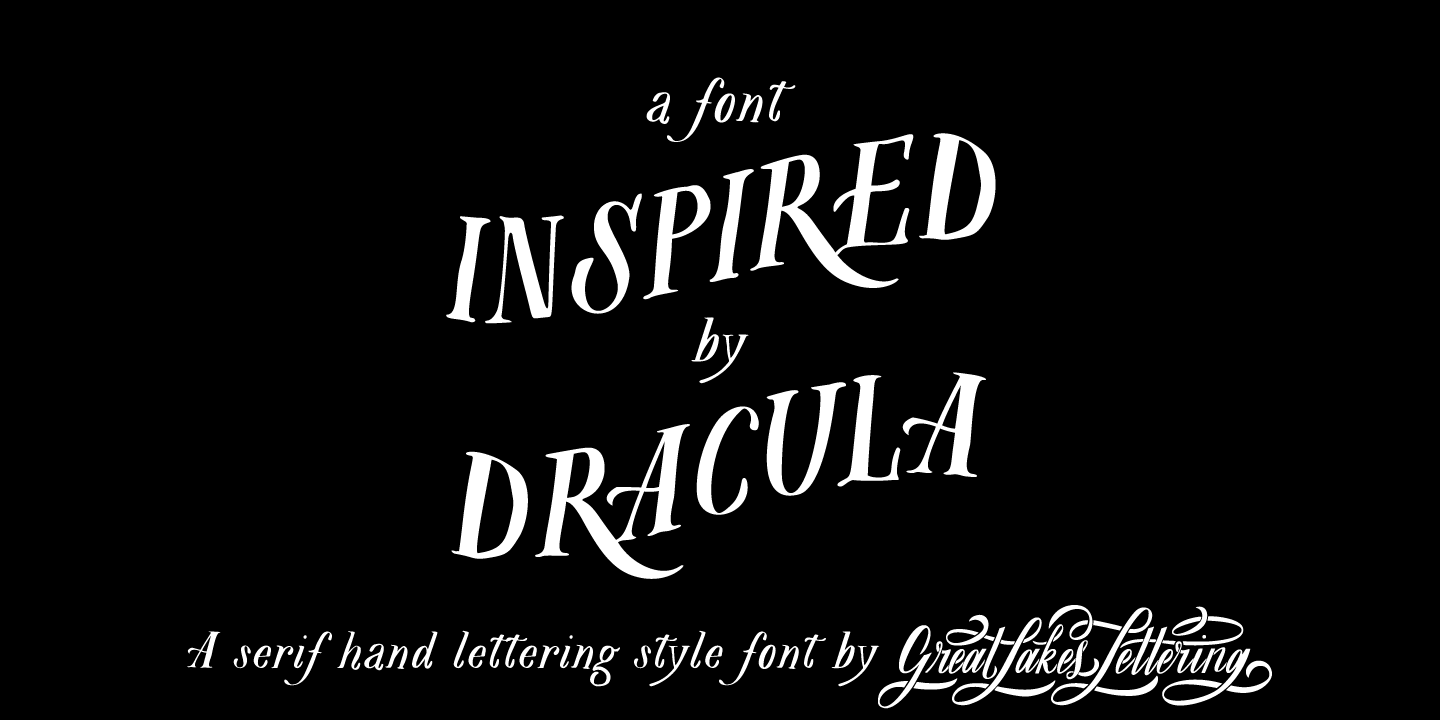
Helsing Font Free Download delivers gothic typography that combines dark elegance with contemporary functionality for atmospheric design applications. This commercial font requires purchase for business use, but you can download it for free for testing purposes to evaluate its distinctive supernatural characteristics in your creative projects.
Helsing Font excels across diverse design applications including horror entertainment branding, gothic fashion labels, supernatural gaming interfaces, dark metal music promotions, Halloween event marketing, paranormal investigation materials, gothic literature publications, and atmospheric web design. Its mysterious character makes it particularly effective for projects requiring dark sophistication while maintaining excellent readability, ensuring your designs convey supernatural authority and gothic elegance across both digital platforms and specialty print materials.
What makes Helsing Font truly exciting is its masterful interpretation of gothic typography traditions enhanced with modern design precision that creates compelling dark atmospheric communications. The font features carefully crafted letterforms that incorporate subtle vampiric elements and medieval proportions reminiscent of ancient manuscripts while maintaining excellent readability and professional application. Its distinctive character construction draws inspiration from vampire hunter folklore and gothic architecture, creating text that feels both supernaturally powerful and contemporarily relevant. The font's optimized spacing and dramatic character relationships ensure superior performance across various gothic applications while preserving the characteristic darkness that defines its supernatural personality.
Helsing Font presents a comprehensive type family designed to support diverse gothic and supernatural design requirements. The family typically includes regular, medium, bold, and heavy weights, along with corresponding italic variations that provide complete flexibility for atmospheric typography compositions. Many versions feature extended character sets with gothic symbols, supernatural ornaments, and specialized glyphs that enhance authentic dark aesthetic applications.
The Helsing Font Free Download represents exceptional value for designers working on gothic and supernatural-themed projects across multiple sectors. Whether developing horror entertainment branding, creating gothic fashion communications, designing supernatural gaming materials, or producing dark music content, this font delivers consistent atmosphere and memorable gothic appeal. Its supernatural characteristics make it particularly effective for industries including horror entertainment, gothic fashion, dark music, and supernatural gaming sectors seeking to communicate authentic darkness and atmospheric sophistication.
For optimal results, Helsing Font combines powerfully with dark color schemes and gothic design elements that reinforce its supernatural message. Its mysterious presence excels in headline applications while maintaining excellent performance in atmospheric storytelling contexts. The font's gothic sophistication and supernatural appeal make it an invaluable tool for creating dark communications that resonate with audiences appreciating gothic culture and supernatural entertainment.